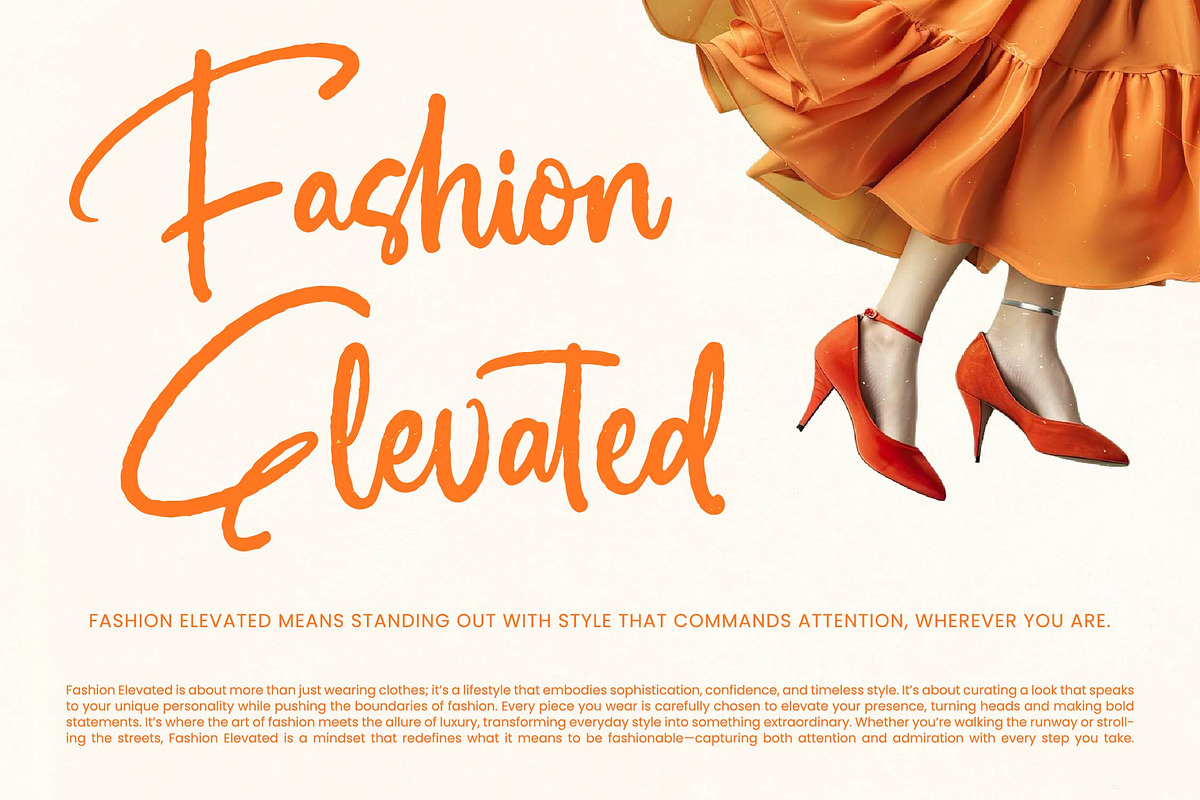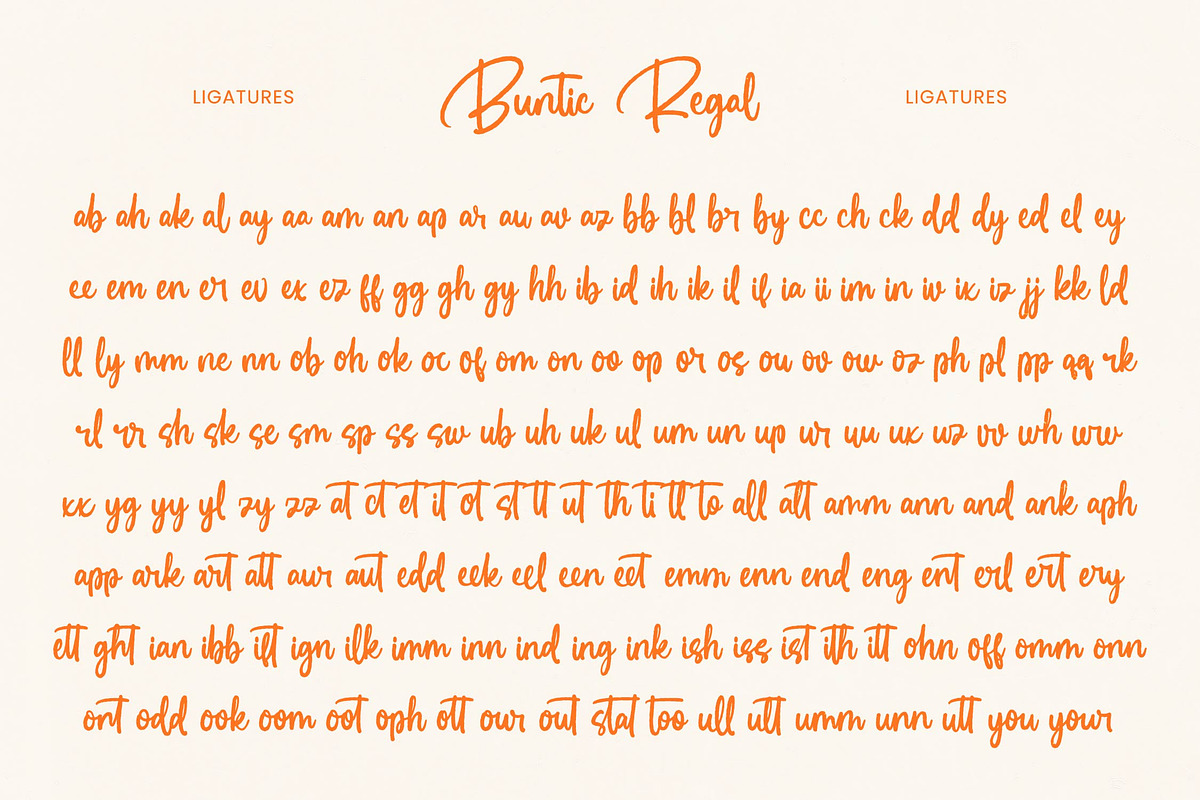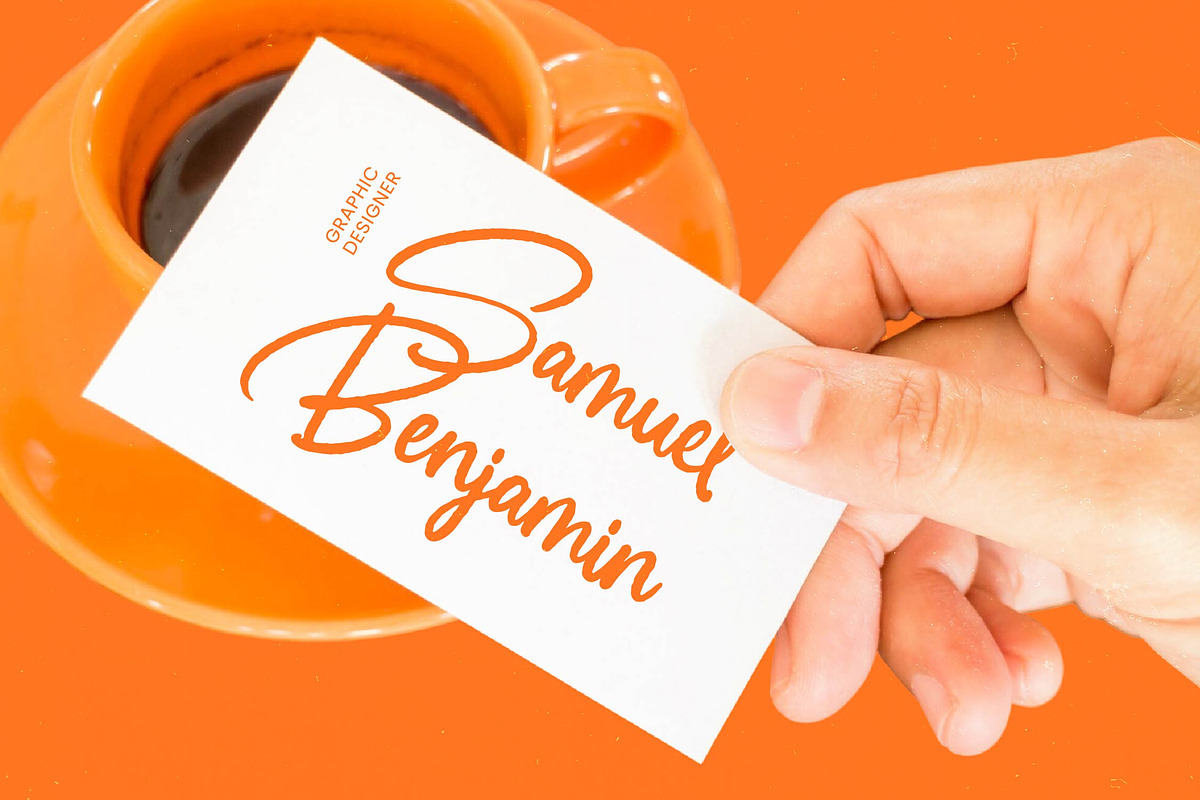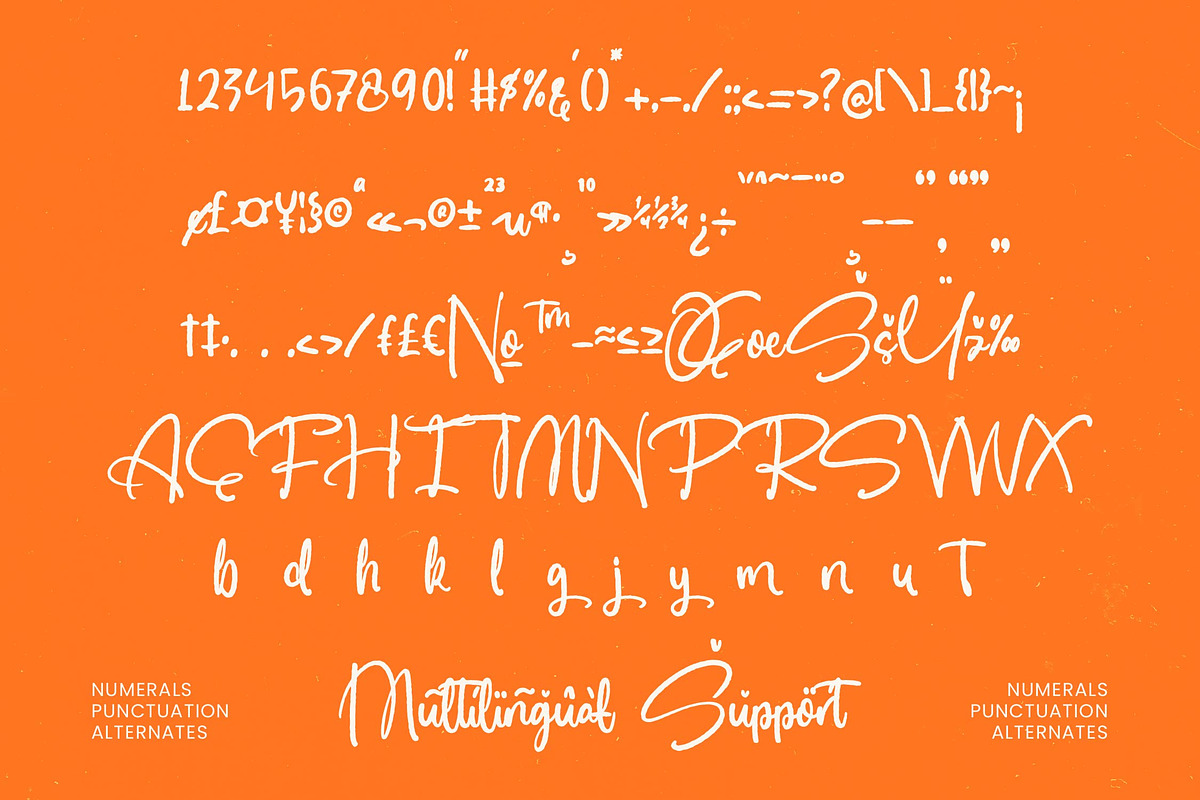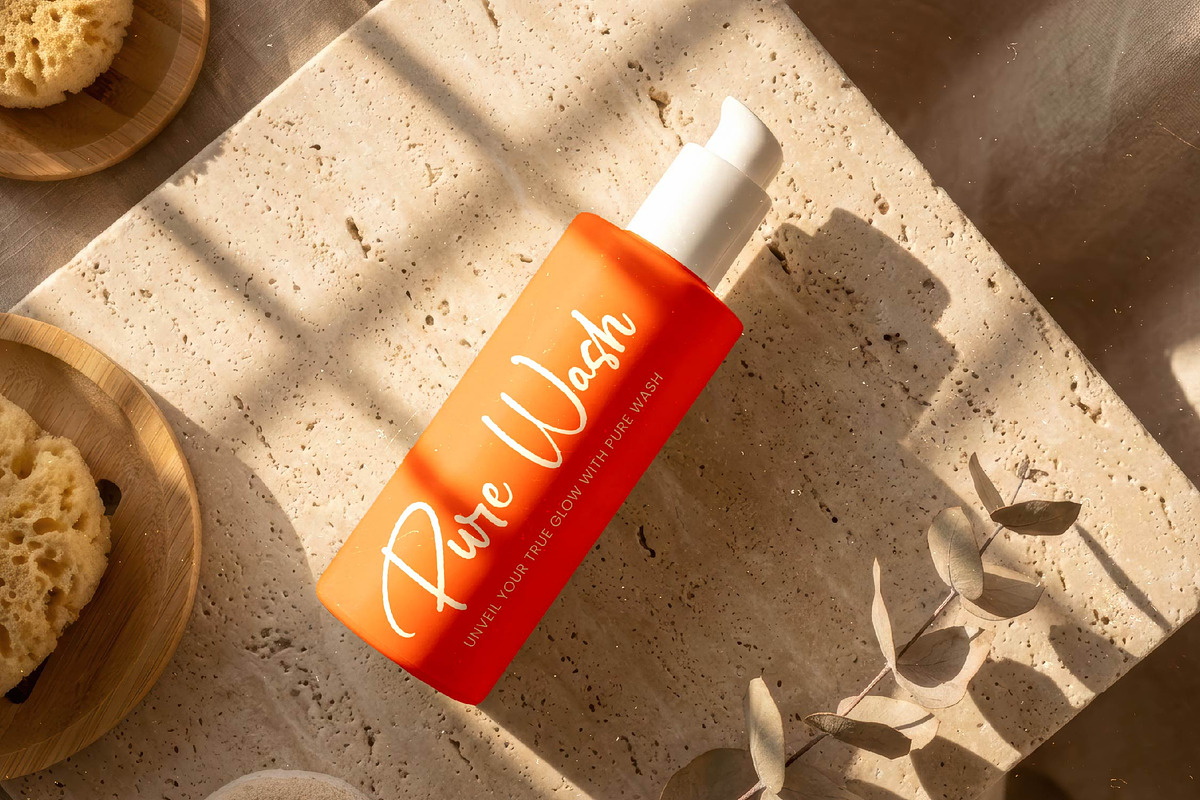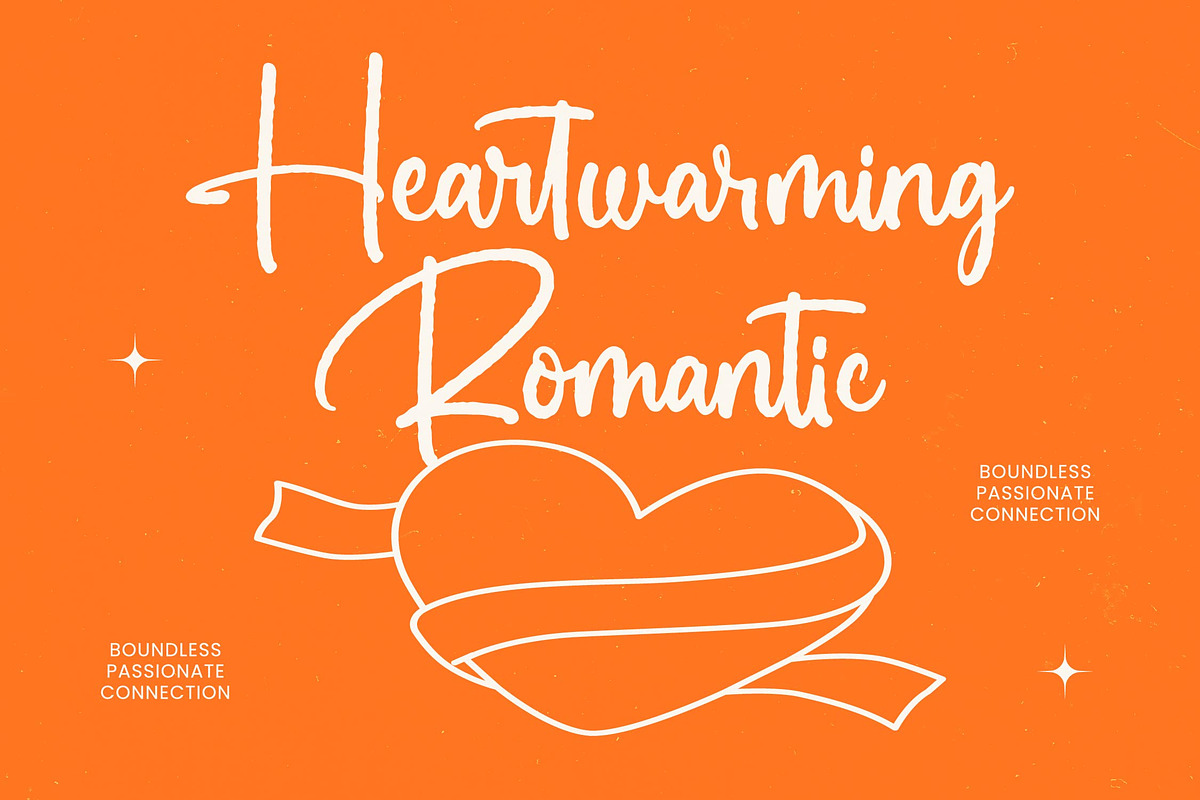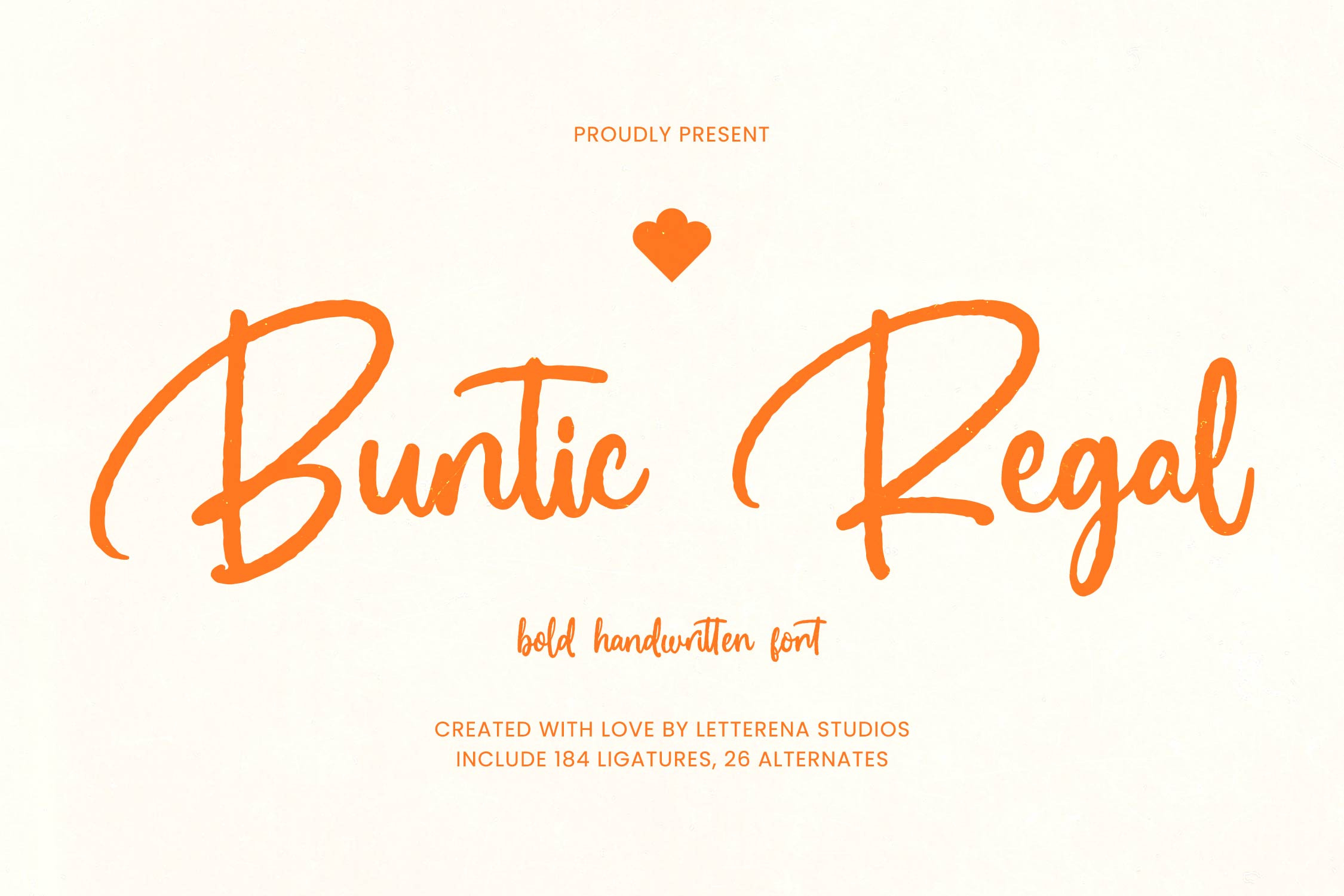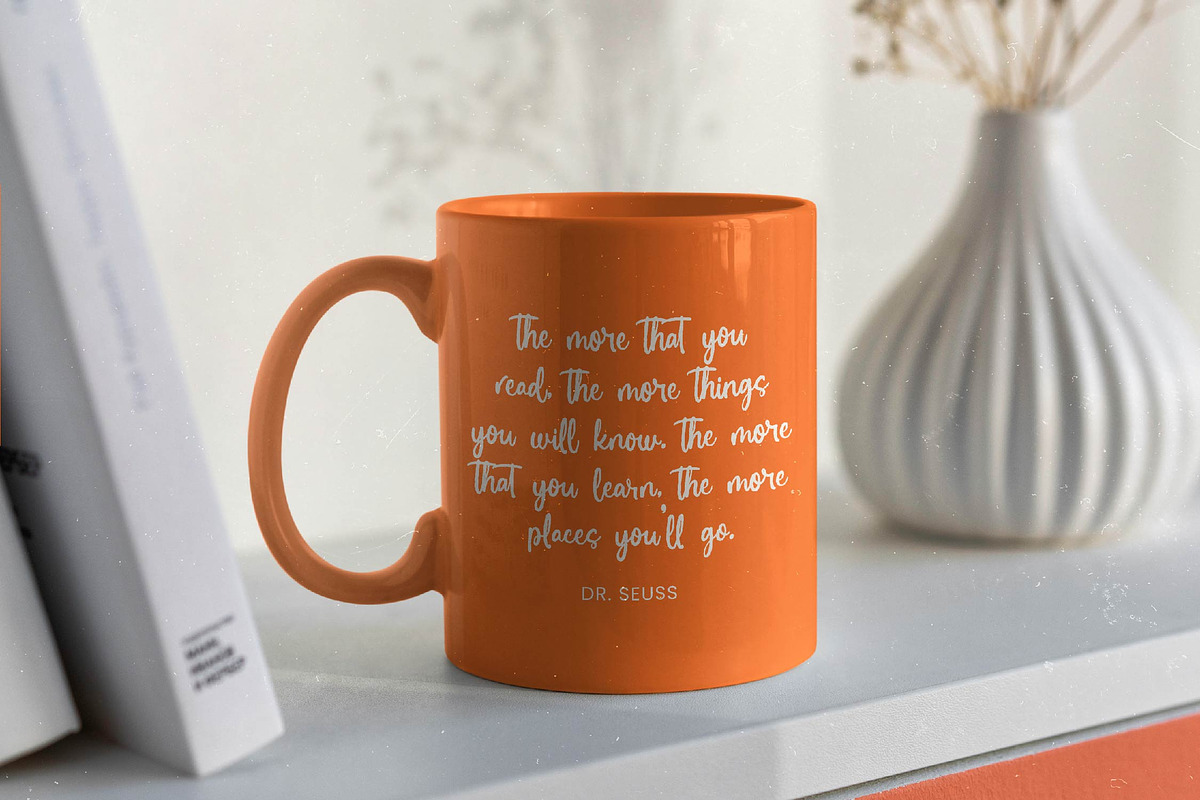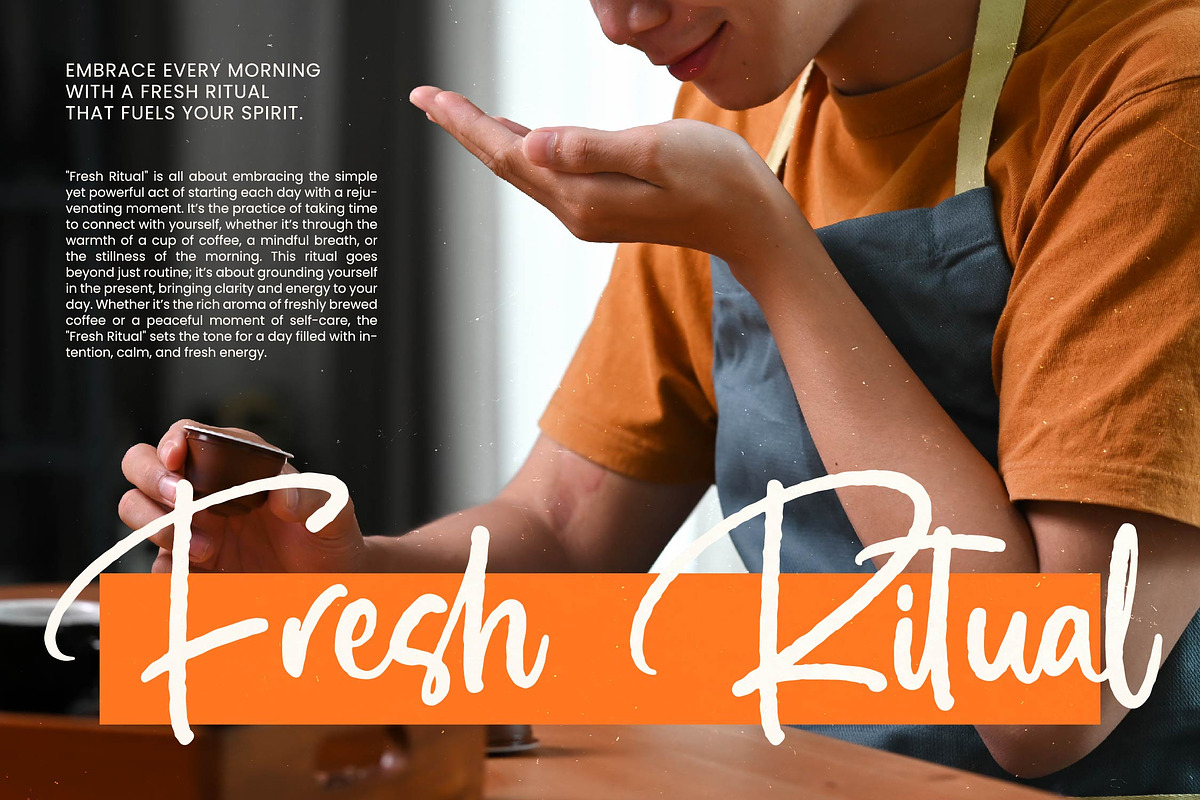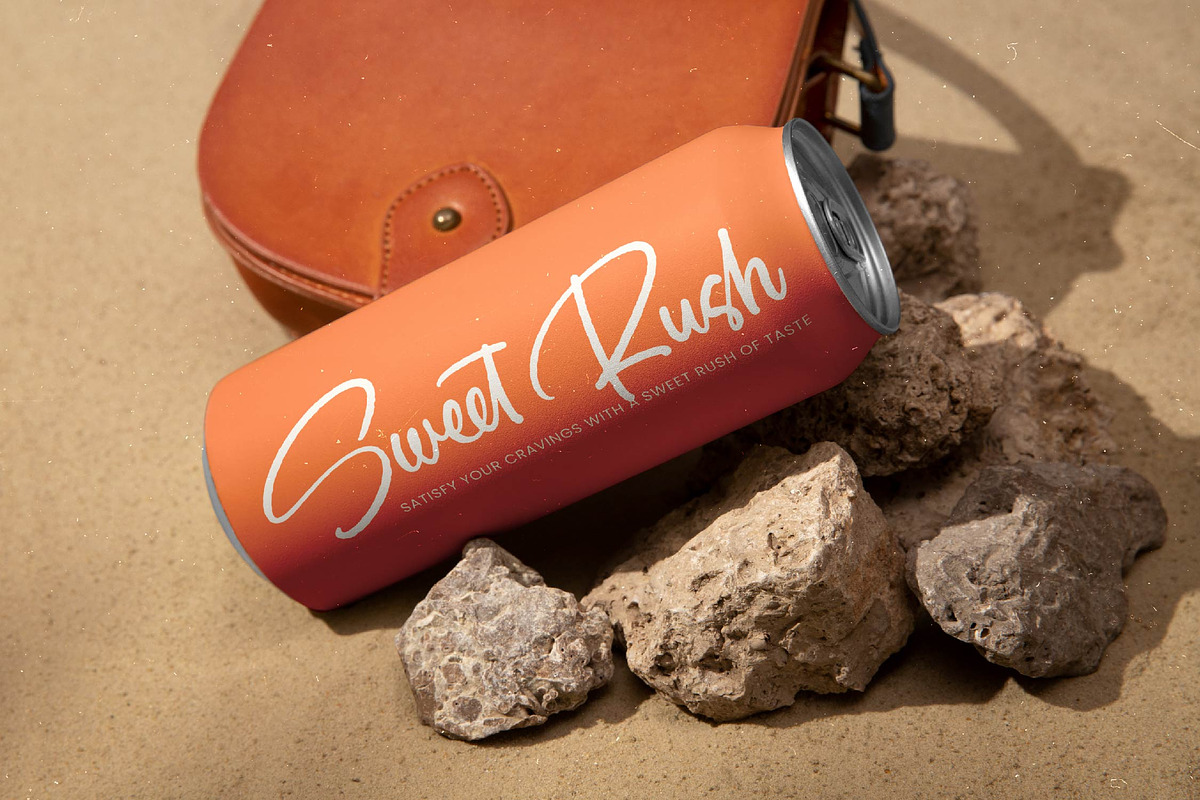
Buntic Regal Bold Handwritten Font
Buntic Regal - Bold Handwritten Font , Elevate your creative projects with a touch of artisanal sophistication and raw energy. Buntic Regal - Bold Handwritten Font is a masterfully crafted typeface that captures the essence of authentic calligraphy while maintaining a commanding presence on the page. Its thick, organic strokes and subtle textured edges provide a sense of high-end craftsmanship, making it an essential tool for designers seeking a premium aesthetic that feels both personal and professional.
Transform ordinary layouts into high-impact visual narratives with ease. This typeface is the ideal application for luxury branding, high-end packaging, and expressive editorial design. Whether you are developing a unique logo for a boutique brand or designing social media assets that require a bold, human touch, Buntic Regal - Bold Handwritten Font is perfect for projects that demand a standout, hand-drawn personality without sacrificing legibility.
Unlock limitless creative potential through an expansive set of advanced typographic features. Including 184 ligatures and 26 alternates, this font allows for a truly customized, non-repetitive look that mimics natural handwriting. With its extensive multilingual support, Buntic Regal - Bold Handwritten Font adapts seamlessly across global markets, making it incredibly versatile for international projects and ensuring your message resonates with diverse audiences worldwide.
Secure a competitive edge in a crowded market by choosing a typeface that radiates bold authenticity. The balanced composition and fluid motion of Buntic Regal - Bold Handwritten Font ensure that your brand identity remains unforgettable across both print and digital platforms. Invest in this versatile design asset today to experience a seamless blend of modern style and calligraphic elegance that will define your future successful campaigns.